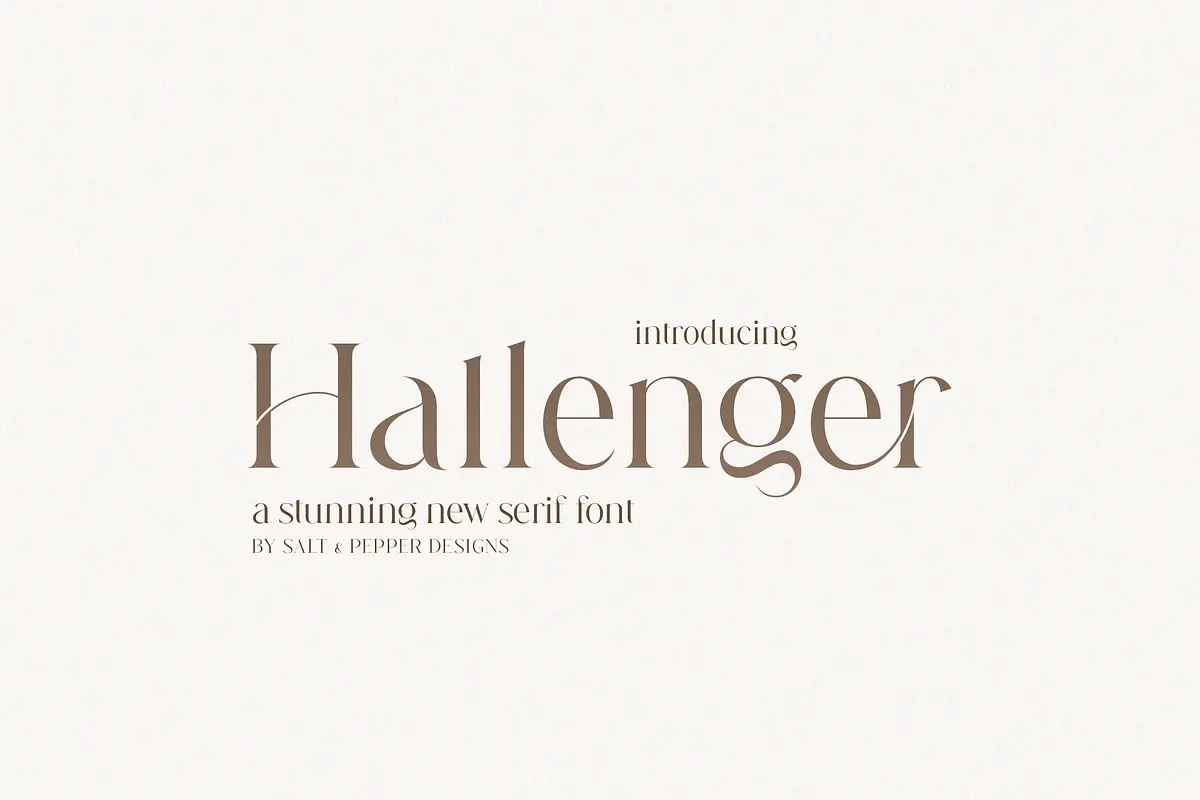
Hallenger Serif Font Free Download
You must purchase this font for commercial use. However, you can download Hallenger Serif Font Free Download for testing purposes. Hallenger is an elegant and sophisticated serif font designed to bring a timeless touch to your designs. With its well-balanced letterforms and classic style, this font is perfect for luxury branding, editorial layouts, book covers, invitations, and more.
Hallenger’s sharp serifs and high-contrast strokes provide a polished, professional appearance, making it ideal for projects that require a refined, stylish look. Whether you're working on a high-end brand identity, creating sophisticated magazine spreads, or designing premium packaging, Hallenger Serif Font Free Download adds elegance and versatility to your typography.